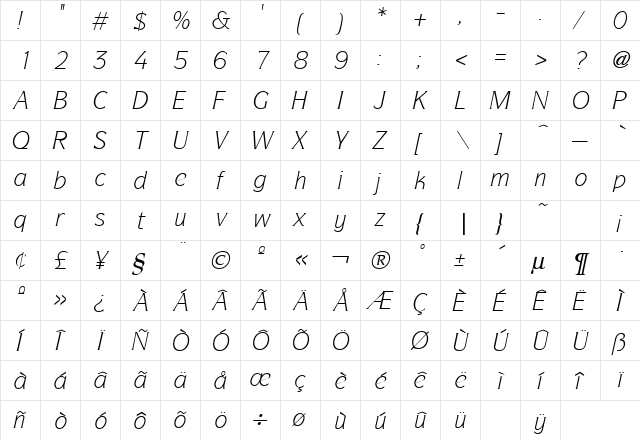
Symbol ITC Italic Font Preview
Symbol ITC Italic
Design Context for Symbol ITC Typeface
Symbol ITC takes a measured approach to typography — its balanced proportions and neutral character make it a reliable workhorse for both digital and print work. Its italic angle brings a sense of urgency and motion to the letterforms.
Pro Tip: Try Symbol ITC for annotation and caption copy alongside an upright companion — the contrast in angle creates a dynamic but ordered typographic system.